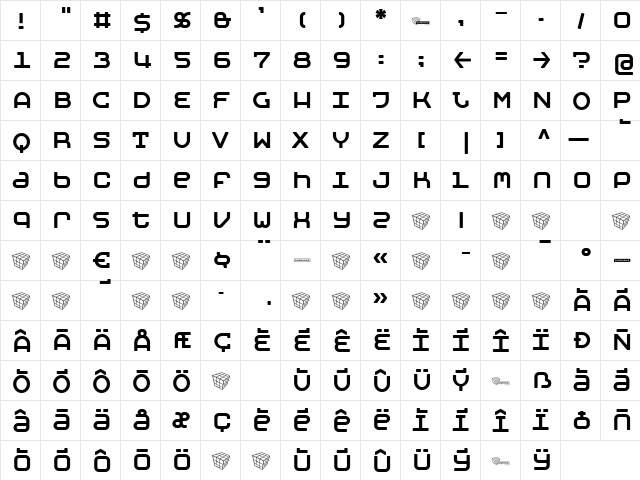
Moby regular
Design Context for Moby Typeface
Moby takes a measured approach to typography — its balanced proportions and neutral character make it a reliable workhorse for both digital and print work.